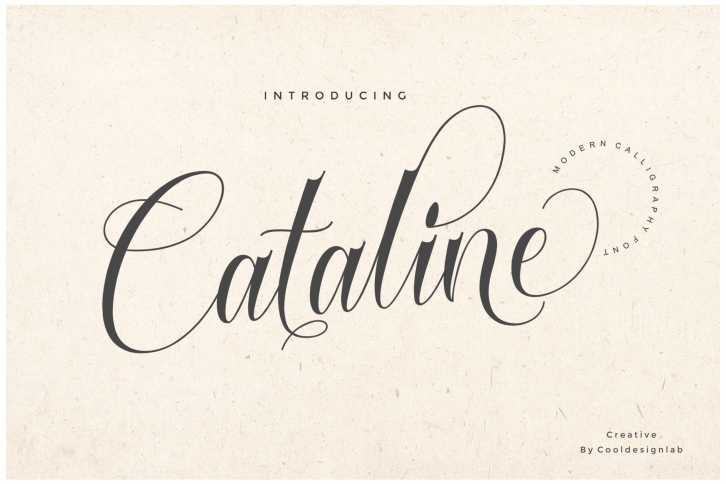
Introducing
Cataline Script a new fresh & modern script with a handmade calligraphy style, decorative characters and a dancing baseline! So beautiful on invitation like greeting cards, branding materials, business cards, quotes, posters, and more!!
Cataline Script including alternate glyph and beautiful swirl in a font including stylistic sets, Ligatures etc. The Open Type features can be accessed by using Open Type savvy programs such as Adobe Illustrator CS, Adobe Indesign & CorelDraw X6-X7 and Microsoft Word. And this Font has given PUA unicode (specially coded fonts). so that all the alternate characters can easily be accessed in full by a craftsman or designer.
Basic Latin A-Z and a-z
Numbers
Symbols
Stylistic Set
Ligature
PUA Encode
Latin Support Character